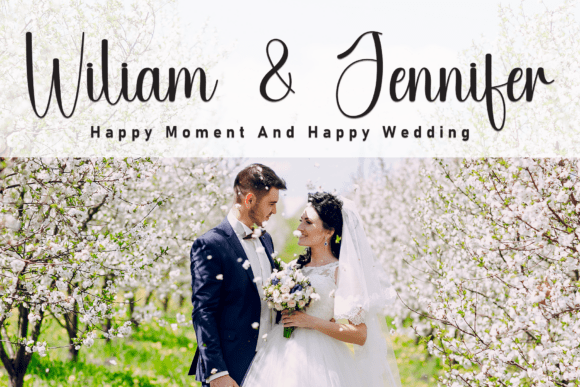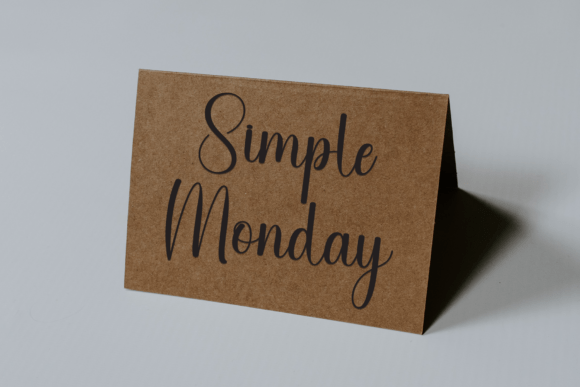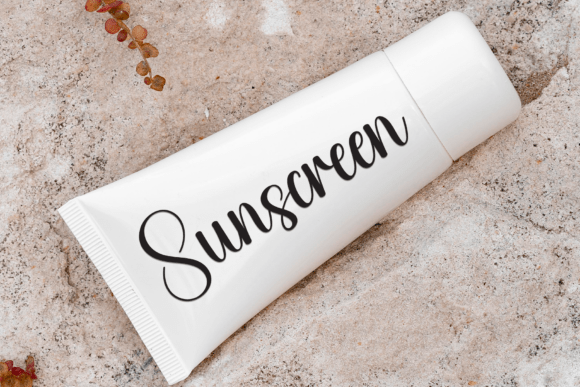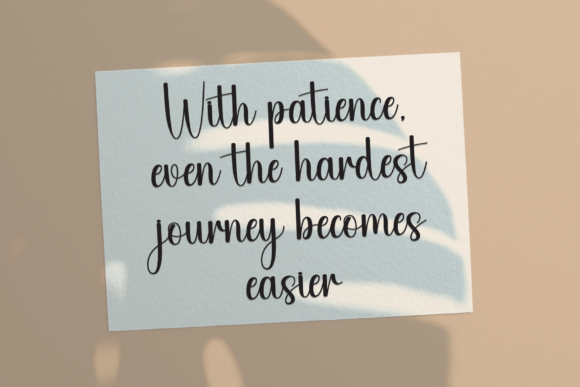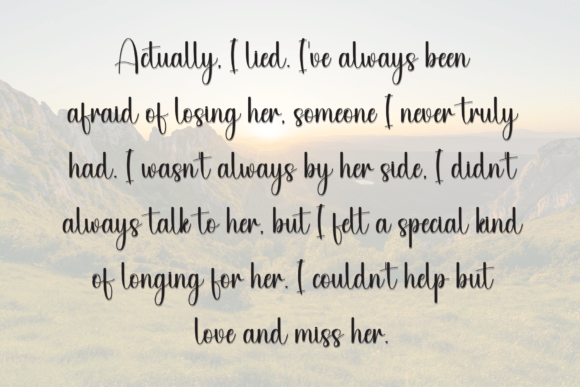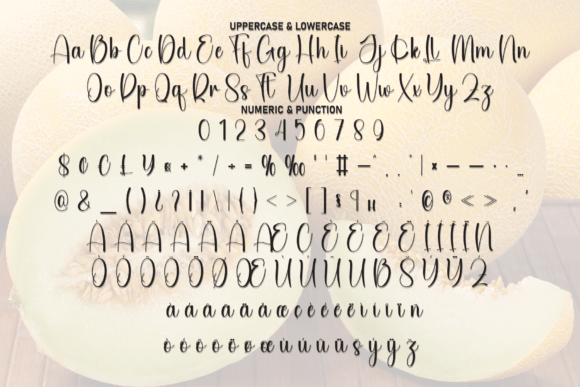
The Perfect Blend of Whimsy and Elegance: Cantaloupe Font
Do you remember that moment when you stumbled upon the perfect font for your project? The one that made your design come alive and captured the essence of your message? For designers, that moment is priceless, and it’s what drives us to continually seek out new and exciting typefaces. For those seeking a unique and captivating display font, look no further than the Cantaloupe Font.
This expertly designed font is the perfect fusion of inviting warmth and amicability, making it ideal for romantic wedding invitations, heartfelt greeting cards, or any artistic project yearning for a sprinkle of dynamic vitality. The Cantaloupe Font’s transformative potency is invaluable for designers, allowing them to imbue their creative ventures with a dash of spirited playfulness.
Cantaloupe Font Key Features
- Unique Characteristics: This font features a unique blend of modern and vintage elements, with intricate details and subtle texture, making it perfect for adding a touch of elegance to your designs.
Cantaloupe Font Review
At first glance, I was drawn to the Cantaloupe Font’s playful and whimsical feel. The font’s rounded edges and soft curves give it a friendly and approachable vibe. ✨ I love how it can add a touch of warmth and personality to digital designs, making it perfect for branding and advertising materials.
One of the standout features of the Cantaloupe Font is its versatility. It comes in a range of weights, from light to bold, which makes it easy to use in a variety of contexts. Whether you’re looking to create a bold headline or a subtle paragraph text, the Cantaloupe Font has got you covered. ✨ The font also supports a range of languages, making it a great choice for international designs.
- Rounded edges and soft curves give it a friendly and approachable vibe
- Versatile and comes in a range of weights
- Supports a range of languages
- May not be suitable for formal or professional designs
- Can be difficult to read in small sizes
- Lacks a strong, dramatic feel
Overall, the Cantaloupe Font is a great choice for designers looking to add a touch of personality and whimsy to their designs. While it may not be suitable for every project, its versatility and range of weights make it a valuable addition to any designer’s toolkit. ⚠️ With some careful consideration of its limitations, the Cantaloupe Font can be a great choice for a wide range of designs.
The Cantaloupe Font is ideal for:
- Summer-themed designs (e.g., beach, pool, or BBQ invitations).
- Food-related designs (e.g., fruit or dessert menus).
- Playful and whimsical designs (e.g., children’s books or party invitations).